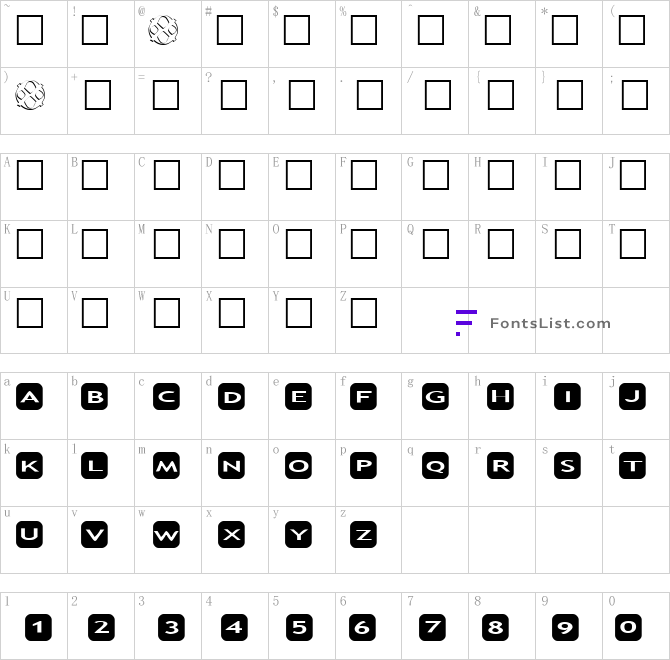
• Font Name:AlphaShapes rounded corners
AlphaShapes-rounded-corners.ttf is a very beautiful artistic font, AlphaShapes-rounded-corners.ttf is widely used in the design and printing of various books and pictures,AlphaShapes-rounded-corners.ttf has a strong visual impact,AlphaShapes-rounded-corners.ttf is a commonly used font in newspapers, magazines and books, and is used in posters, e-commerce Poster design, store design, logo design, font design and other fields.AlphaShapes-rounded-corners.